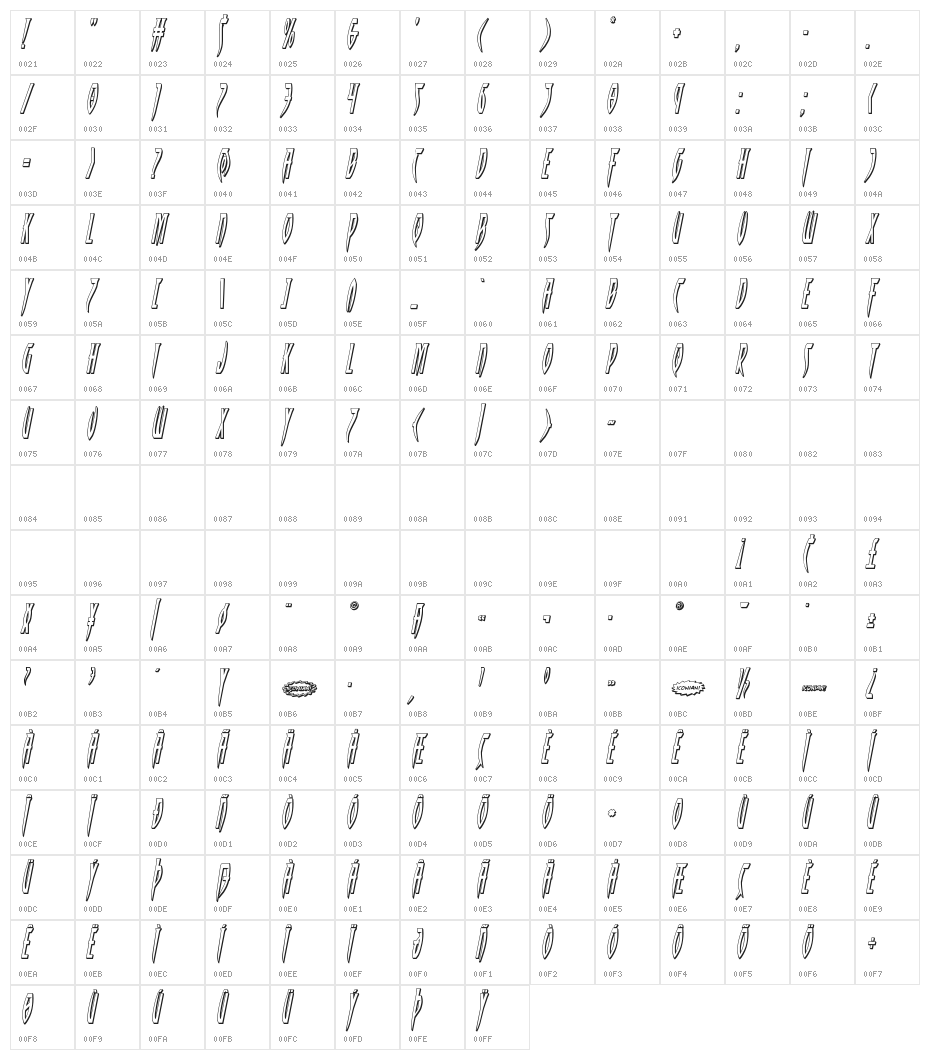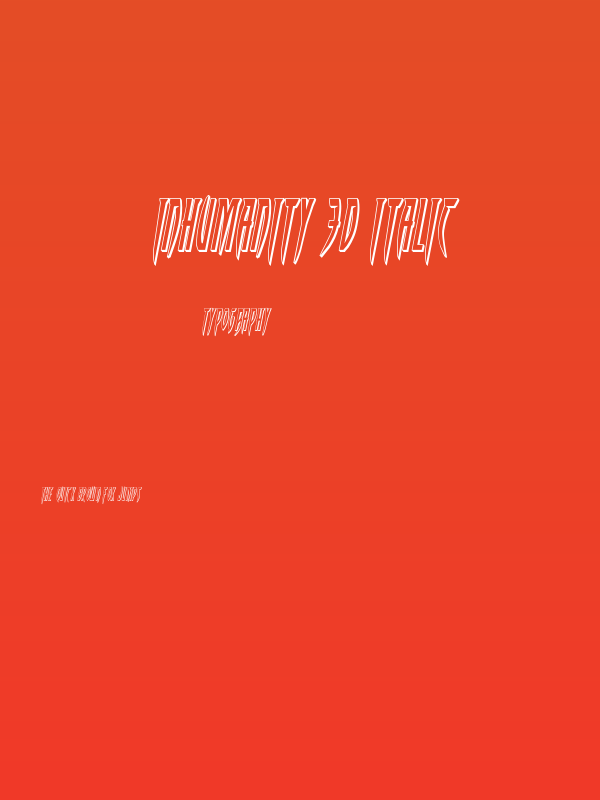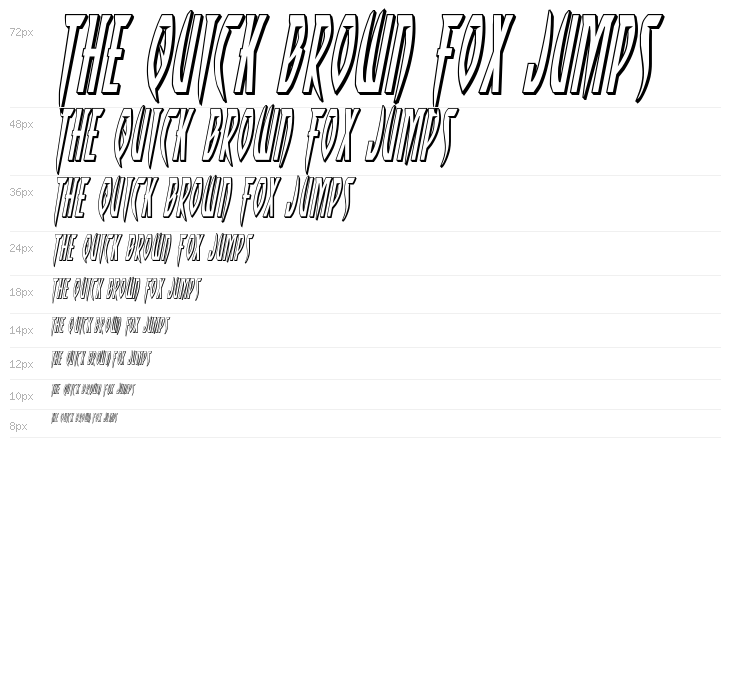
Inhumanity 3D Italic Font
Inhumanity 3D Italic Description
This font features a bold, three-dimensional design with a distinct italic slant, giving it a dynamic and futuristic appearance. The characters are elongated and angular, creating a sense of movement and energy. The 3D effect is achieved through shadowing, which adds depth and a striking visual impact. The uppercase and lowercase letters maintain a consistent style, with sharp edges and a modern aesthetic. The numerals and special characters are designed to match the overall theme, ensuring a cohesive look across all text elements.
Overall StyleFuturistic
Proposed ProjectsIdeal for sci-fi themed projects, video game titles, movie posters, and branding that requires a modern and energetic look.